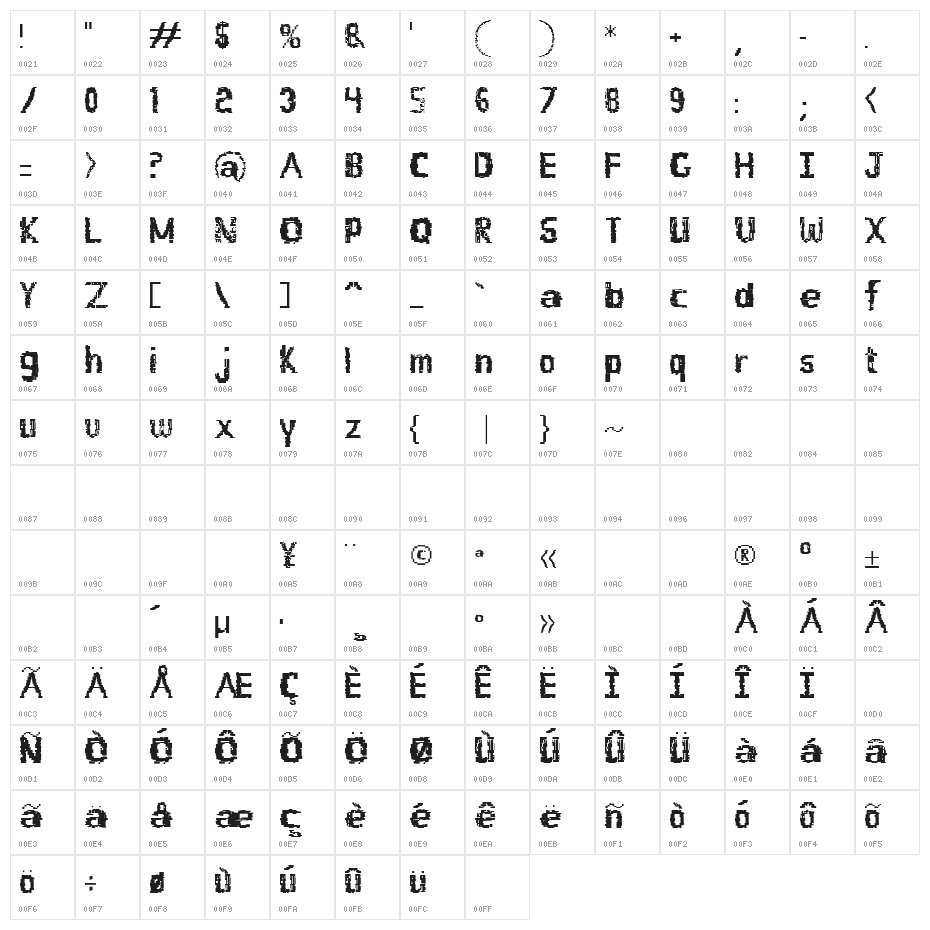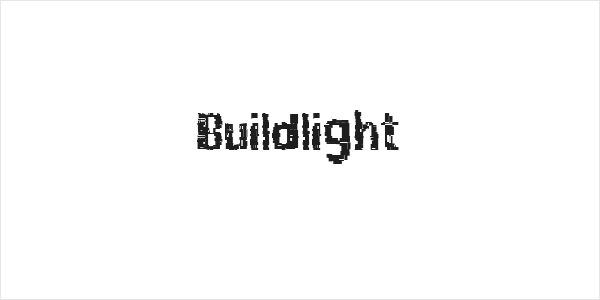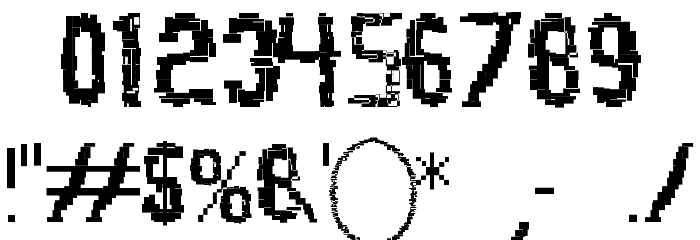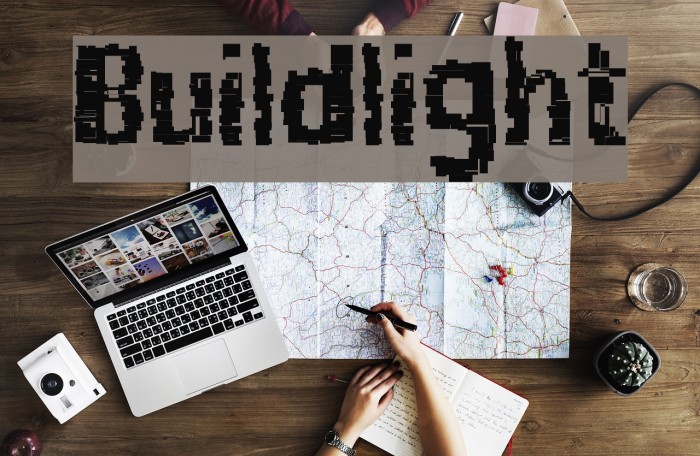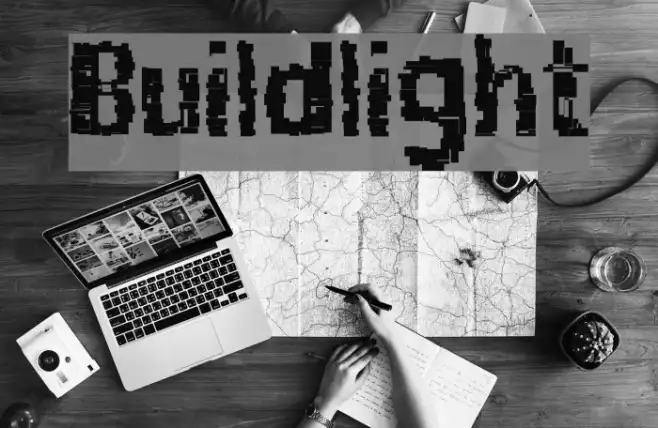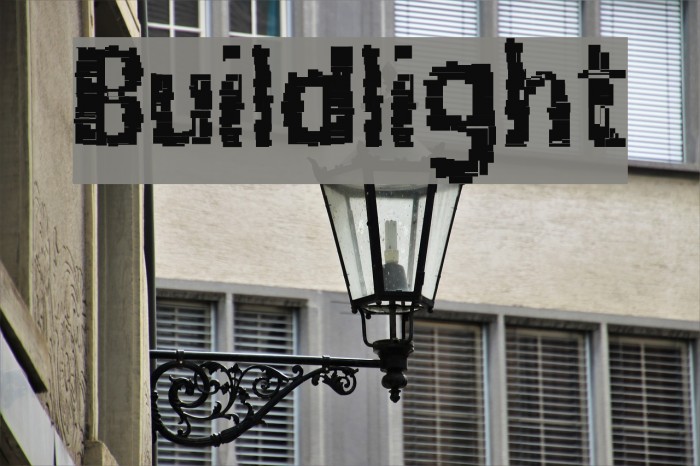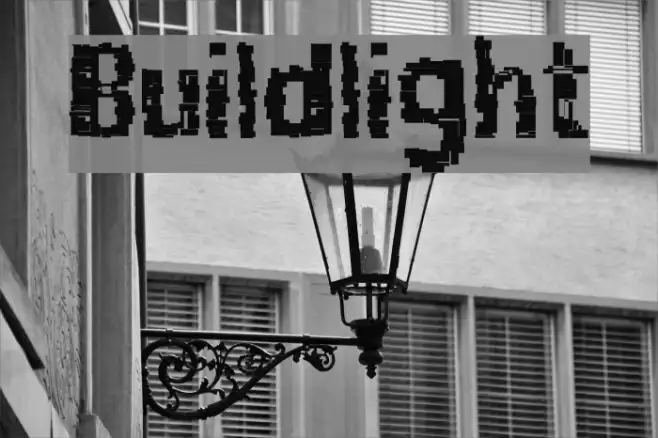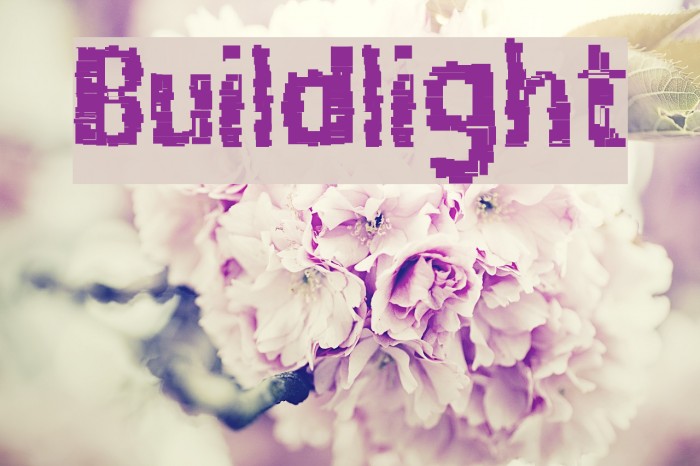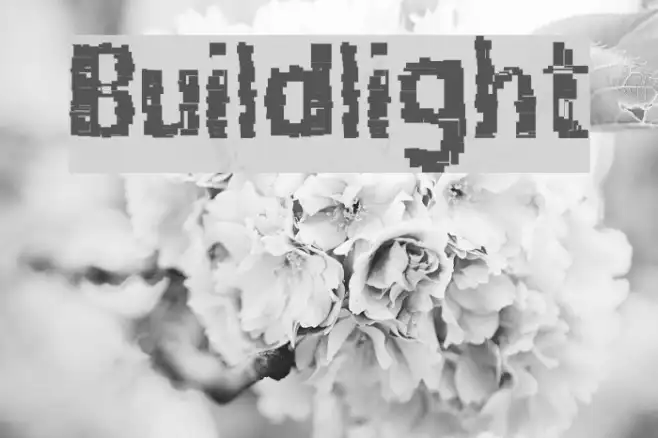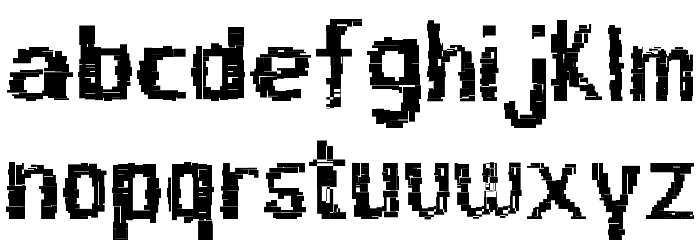
Buildlight Font
Buildlight Description
This font features a rugged, distressed style with a textured appearance that gives it a unique, handcrafted look. The characters are bold and slightly irregular, adding a sense of dynamism and energy. The uppercase and lowercase letters maintain a consistent height, while the numbers and special characters follow the same distressed aesthetic. The font's rough edges and uneven strokes create a visually striking effect, making it ideal for projects that require a bold and impactful statement.